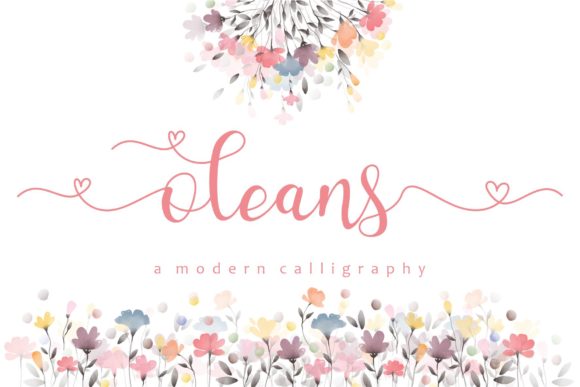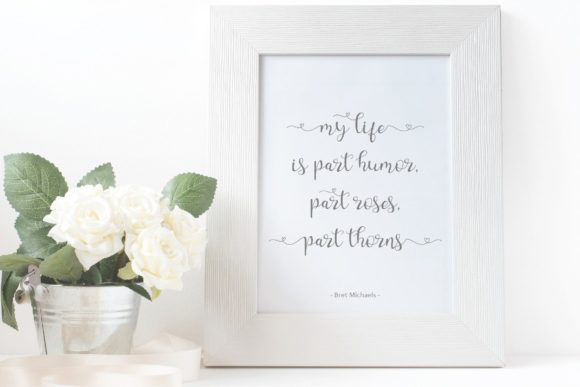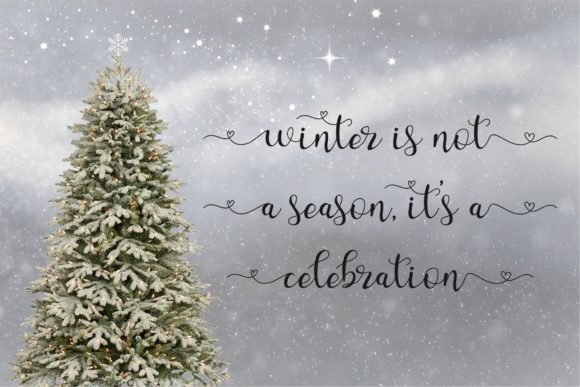
About Oleans Font
“Oleans” is an exquisite handwritten font that radiates elegance and grace. Its flowing and delicate design makes it a perfect choice for a wide range of design projects, adding a touch of sophistication to any piece. With its varying baseline, smooth lines, gorgeous glyphs, and stunning alternates, “Oleans” offers versatility and beauty that can elevate various creations. Here are some ideas on how to use this stunning font to enhance your designs:
1. Wedding Invitations: Create enchanting and romantic wedding invitations using “Oleans” to set the perfect tone for the special day.
2. Thank You Cards: Design heartfelt thank you cards with “Oleans” to express gratitude in an elegant and charming manner.
3. Quotes and Inspirational Art: Use “Oleans” to craft beautiful typography art featuring inspirational quotes, bringing an air of refinement to your messages.
4. Greeting Cards: Design stunning and sophisticated greeting cards for various occasions with the help of “Oleans.”
5. Logos and Branding: Apply the font to logos and branding materials to create a memorable and classy representation of your brand.
6. Business Cards: Utilize “Oleans” for business card designs that make a lasting impression with their elegant appearance.
7. Social Media Graphics: Enhance your social media posts with “Oleans” to captivate your audience with its flowing beauty.
8. Personal Stationery: Use the font on personal stationery items such as letterheads, envelopes, and notepads to add a touch of elegance to your communication.
9. Book Covers: Apply “Oleans” to book covers, infusing them with an air of sophistication and allure.
10. Event Invitations: Design stylish and chic event invitations using “Oleans” to impress your guests.
11. Packaging and Labels: Utilize “Oleans” on product packaging and labels to create an elegant and eye-catching look.
12. Magazine Titles and Headlines: Use the font for magazine titles and headlines to add a sense of refinement and charm to your publication.
13. Art Prints: Create stunning art prints with “Oleans” to adorn walls with elegant calligraphy.
14. Monograms: Craft personalized monograms using “Oleans” to add a touch of individuality to various items.
15. Quote Posters: Design captivating quote posters with “Oleans” to add an elegant touch to motivational and inspirational messages.
“Oleans” effortlessly captures the essence of elegance with its flowing and sophisticated design. Its smooth lines, varying baseline, and stunning alternates make it a versatile and captivating font for a multitude of design projects. Embrace the timeless beauty of “Oleans” and watch as it brings your creative ideas to life with grace and sophistication.